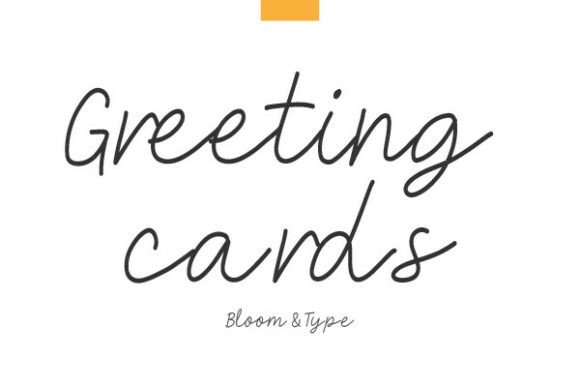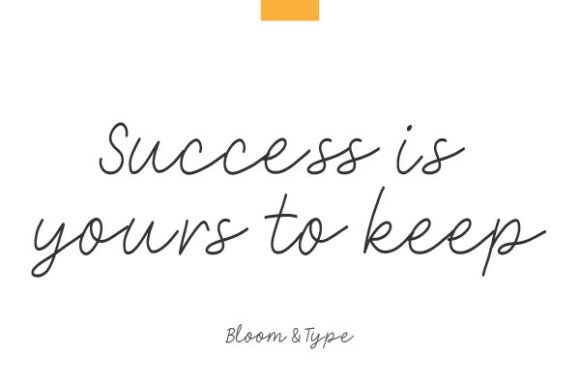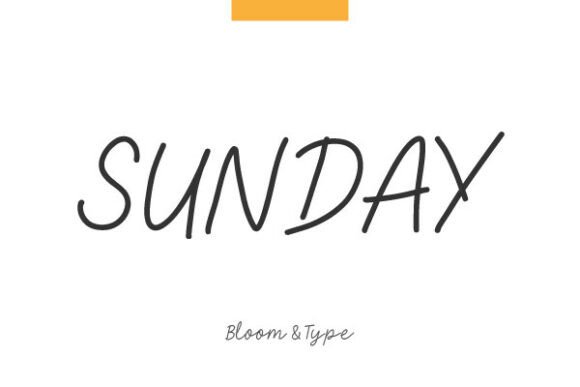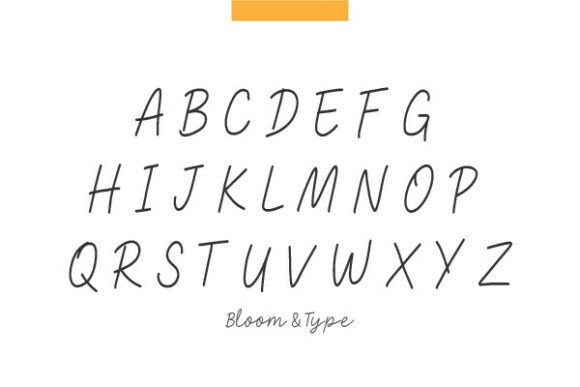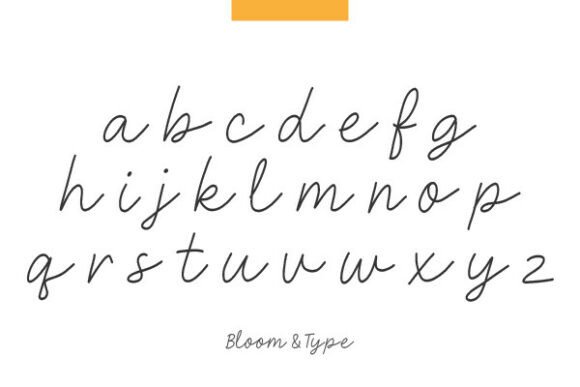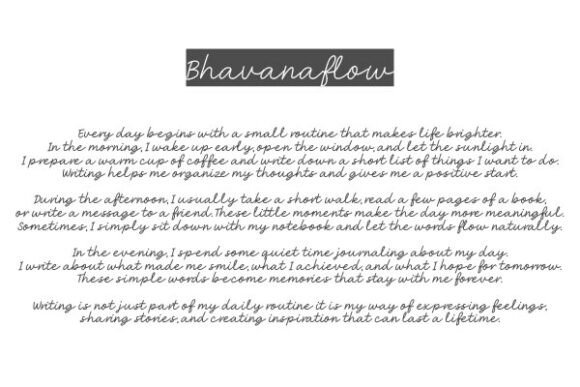
Bhavanaflow Font: Elevate Your Designs with Elegance and Serenity
In the world of typography, fonts play a crucial role in conveying the tone and personality of a design. For creatives seeking to infuse their work with a sense of calmness, mindfulness, and natural elegance, the Bhavanaflow font is an exceptional choice. This beautifully handcrafted handwriting font is designed to bring a unique charm to various projects, making it perfect for designers and crafters looking to add a touch of sophistication and warmth to their creations.
The Characteristics of Bhavanaflow
Bhavanaflow boasts smooth curves, clean strokes, and a graceful flow that sets it apart from other fonts. Its characters are meticulously crafted to convey a sense of serenity and elegance, making every word look personal yet professional. The font’s handcrafted nature gives it a distinctive, human touch that can elevate a wide range of design projects, from logos and branding to invitations and social media content.
Perfect for Projects Seeking Balance and Sophistication
Bhavanaflow is particularly well-suited for projects that aim to strike a balance between warmth and sophistication. Its unique charm can add a touch of personality to any design, making it an excellent choice for:
- Logos and Branding: Create a lasting impression with a logo that exudes elegance and professionalism.
- Invitations: Add a touch of warmth and sophistication to wedding invitations, event invitations, or any other type of formal announcement.
- Social Media Content: Elevate your social media posts, stories, and captions with a font that conveys creativity and serenity.
Why Choose Bhavanaflow?
With so many fonts available, why choose Bhavanaflow? Here are a few compelling reasons:
- Unique and Handcrafted: Bhavanaflow’s handcrafted nature ensures that your designs stand out from the crowd.
- Versatile: This font can be used for a wide range of projects, from digital content to print materials.
- Elegant and Serene: Bhavanaflow’s smooth curves and clean strokes evoke a sense of calmness and mindfulness.
Tips for Using Bhavanaflow Effectively
To get the most out of Bhavanaflow, consider the following tips:
- Pair with Complementary Fonts: Combine Bhavanaflow with sans-serif fonts for a modern contrast or with serif fonts for a classic look.
- Experiment with Colors: Try pairing Bhavanaflow with a range of colors to find the perfect match for your design.
- Pay Attention to Spacing: Ensure that your text has sufficient spacing to allow Bhavanaflow’s elegant curves to shine.
Bhavanaflow is a beautifully crafted handwriting font that can bring a sense of calmness, mindfulness, and natural elegance to your designs. Its unique charm, versatility, and handcrafted nature make it an excellent choice for designers and crafters seeking to add a touch of sophistication and warmth to their creations. Whether you’re working on logos, branding, invitations, or social media content, Bhavanaflow is sure to elevate your message with a touch of serenity and creativity.
Discover the beauty of Bhavanaflow and take your designs to the next level. Explore the possibilities of this exceptional font and experience the perfect blend of elegance, sophistication, and creativity.